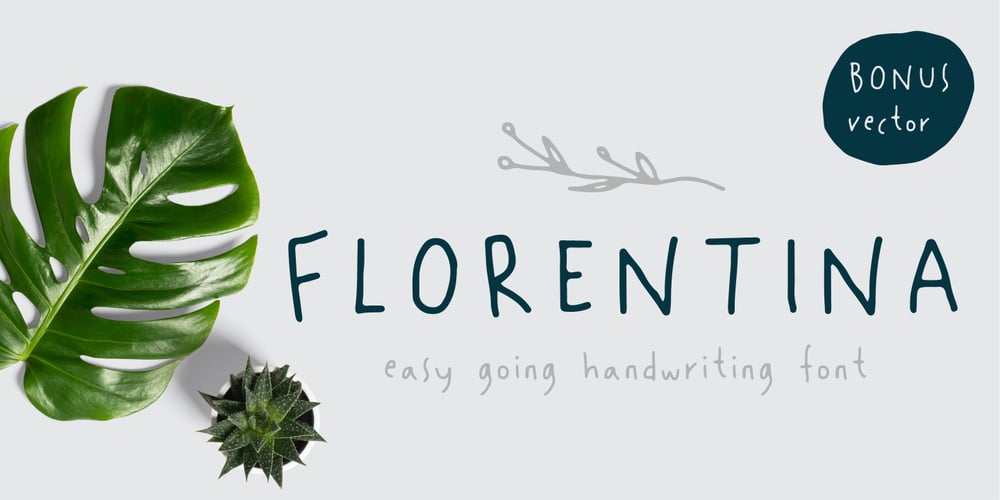
Florentina Font Family was designed by Sahirul Iman and published by Namistudio. Florentina contains 1 styles and family package options. If you ever dream about light vibe, playful, easy going, cute, has some nature touch in it and still has a good read-ability font: it’s time to wake up. Florentina is here. The “ink bleed”, irregular line, it looks like you write it by yourself. Not mentioning that dreamy hand-drawn bonus… LOTS OF THEM. And it is support 22 languages as well. I hope it support yours. Happy designing! BONUS vector can be downloaded from https://www.dropbox.com/sh/fwgkzcecjy8tqsu/AADi06i-Hf0R49mtT8_DPMw8a?dl=0